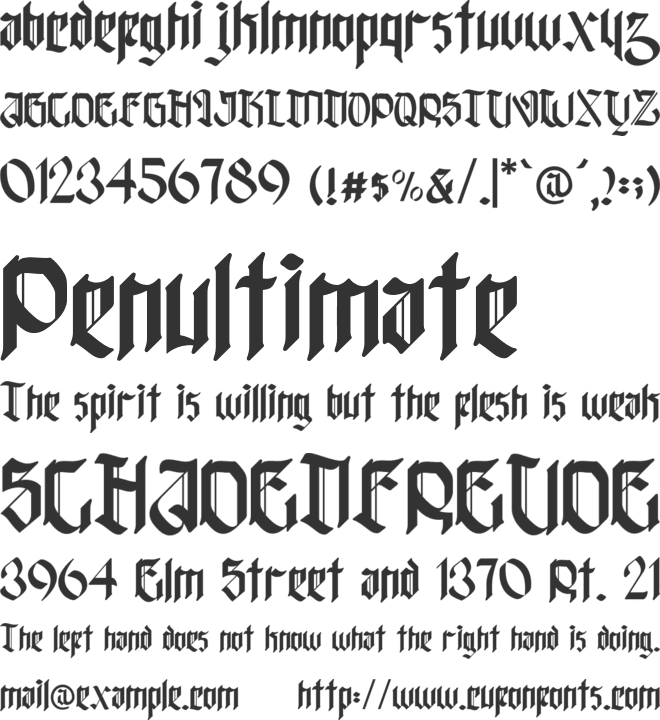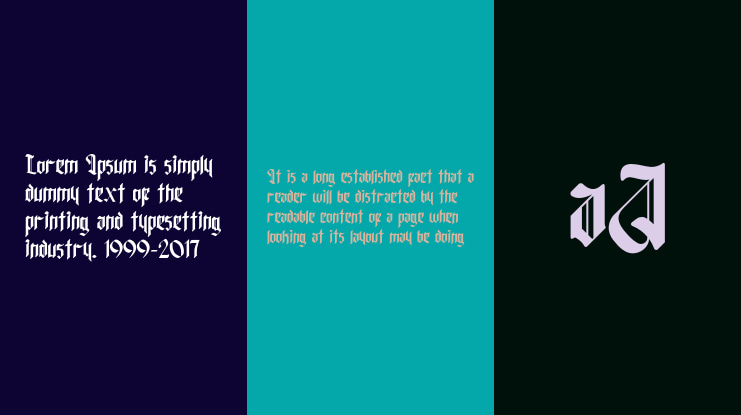
Odgar Font
Odgar is Blackletter typeface is inspired by Viking heritage and Norse mythology, capturing the spirit of strength, honor, and ancient warfare. Built with bold strokes, sharp angles, and classic medieval proportions, this font delivers a powerful and heroic presence.